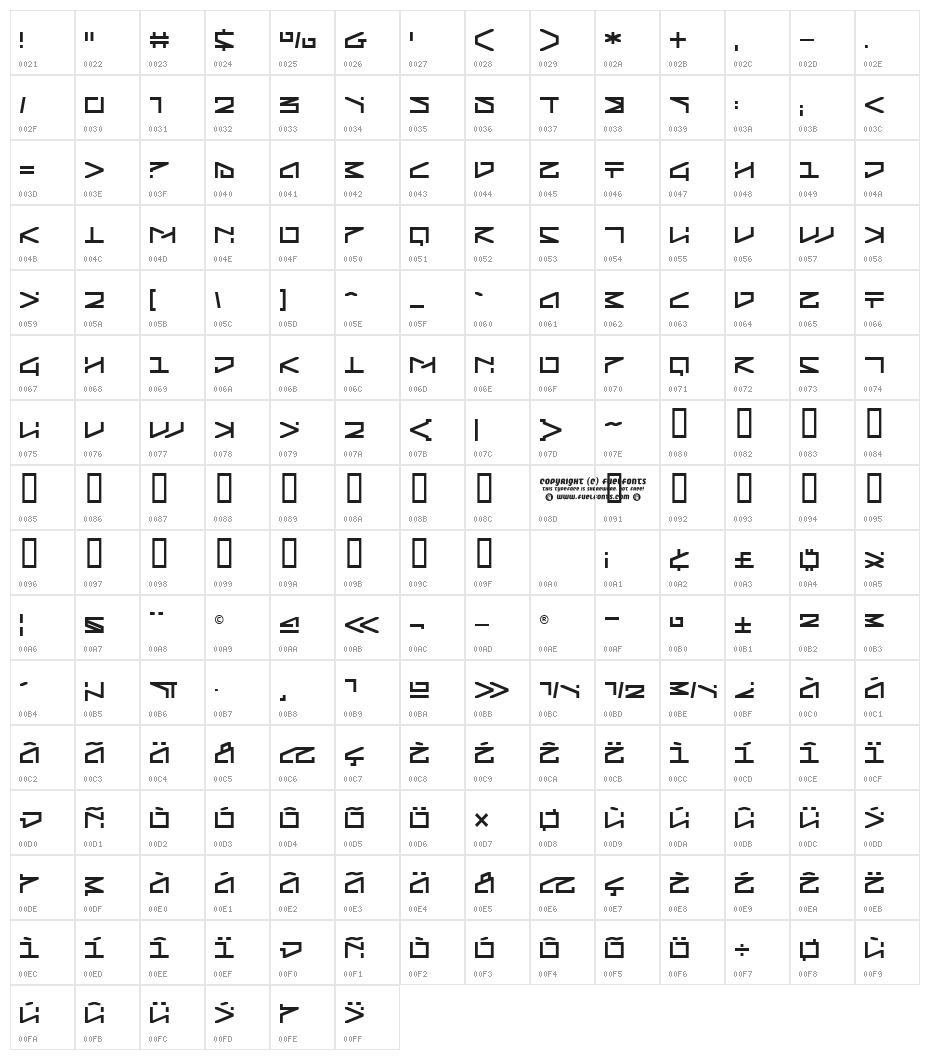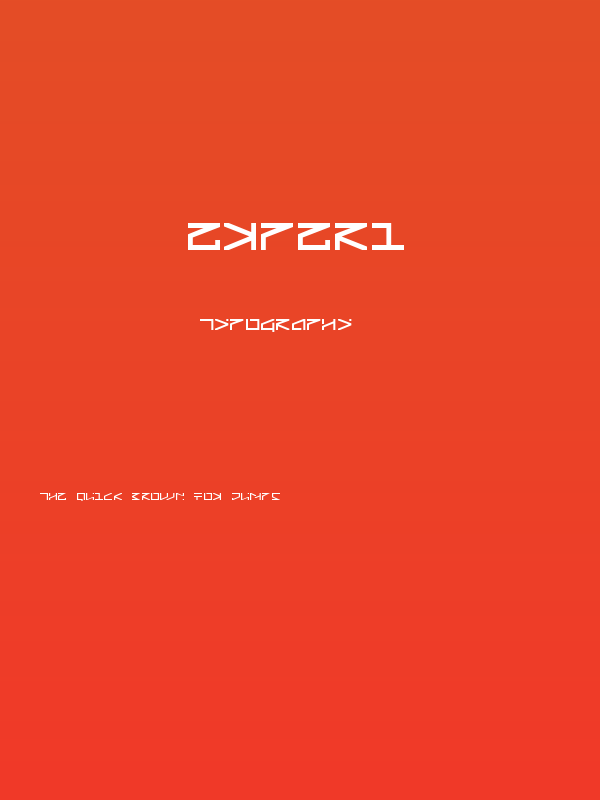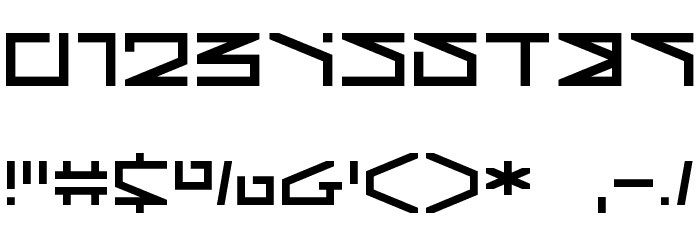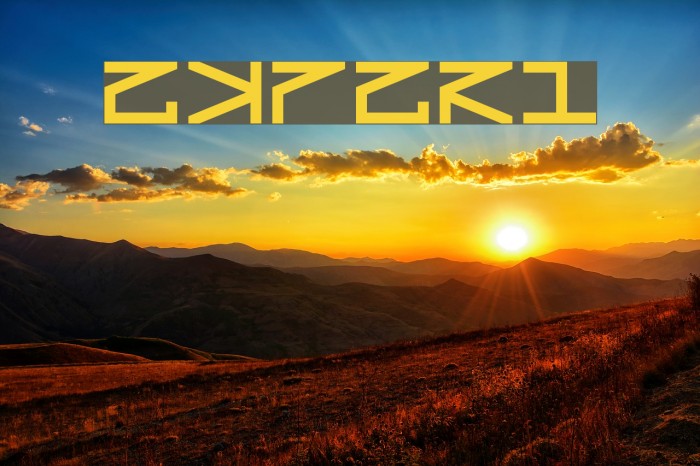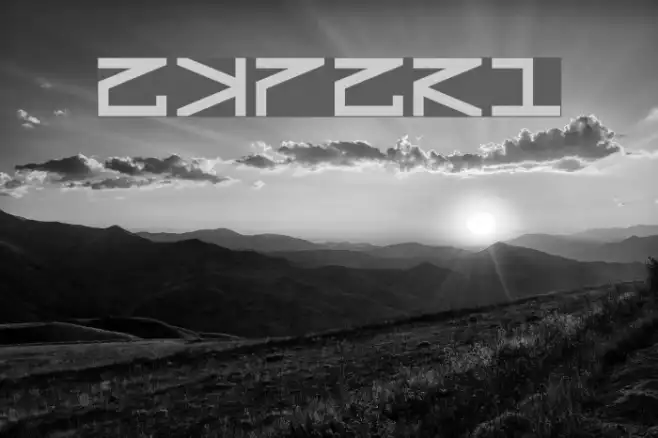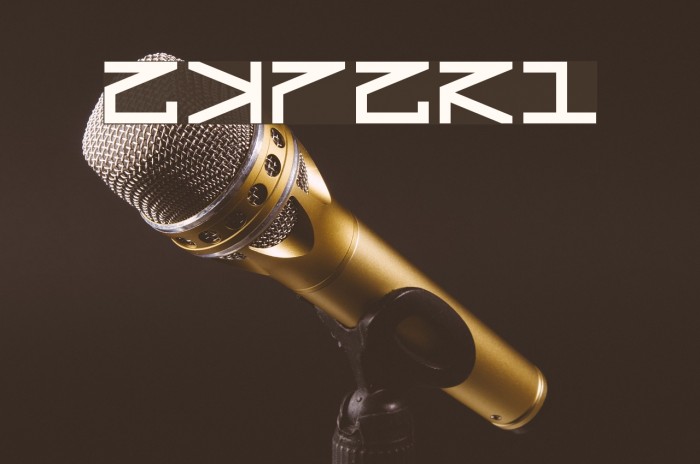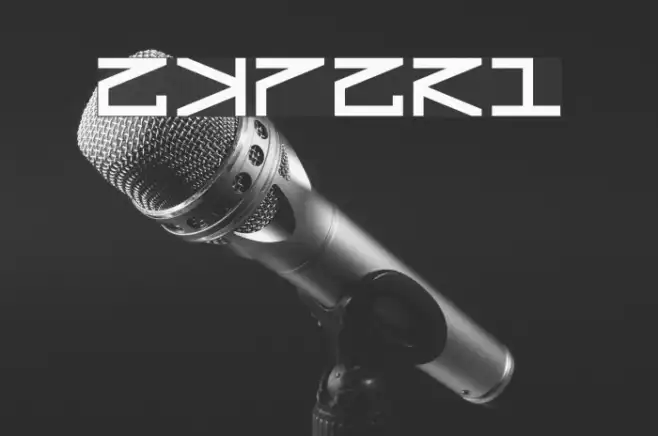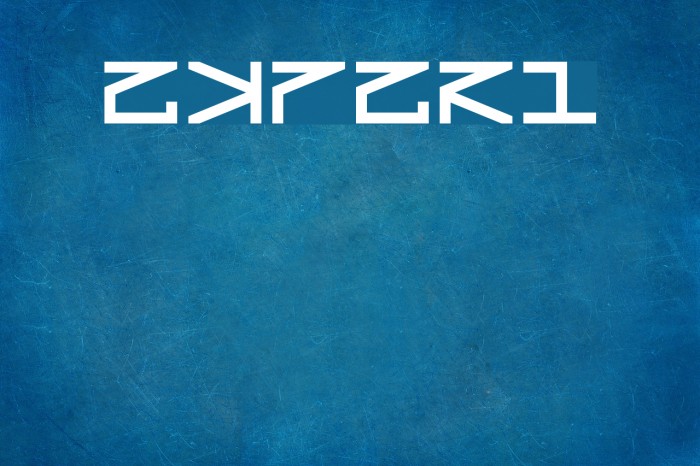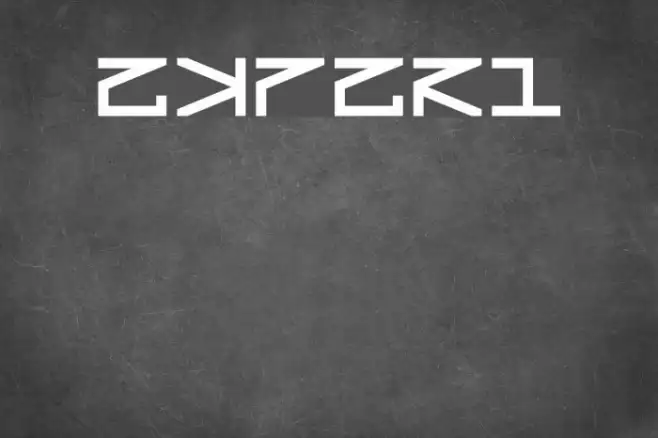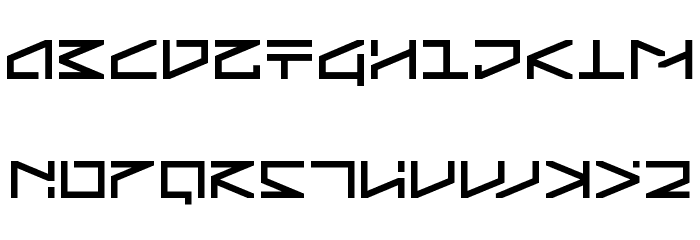
Experi Font
This font features a futuristic and geometric design, characterized by sharp angles and a distinct, technical appearance. The characters are constructed with bold, straight lines and angular cuts, giving it a digital or sci-fi aesthetic. The uppercase and lowercase letters maintain a consistent style, with unique variations that enhance its modern look. Numbers and special characters follow the same design principles, ensuring uniformity across all glyphs. The font's structure is highly stylized, making it suitable for projects that require a cutting-edge, tech-inspired feel.
| Proposed Projects | Ideal for tech branding, sci-fi movie posters, video game titles, and digital interfaces. |